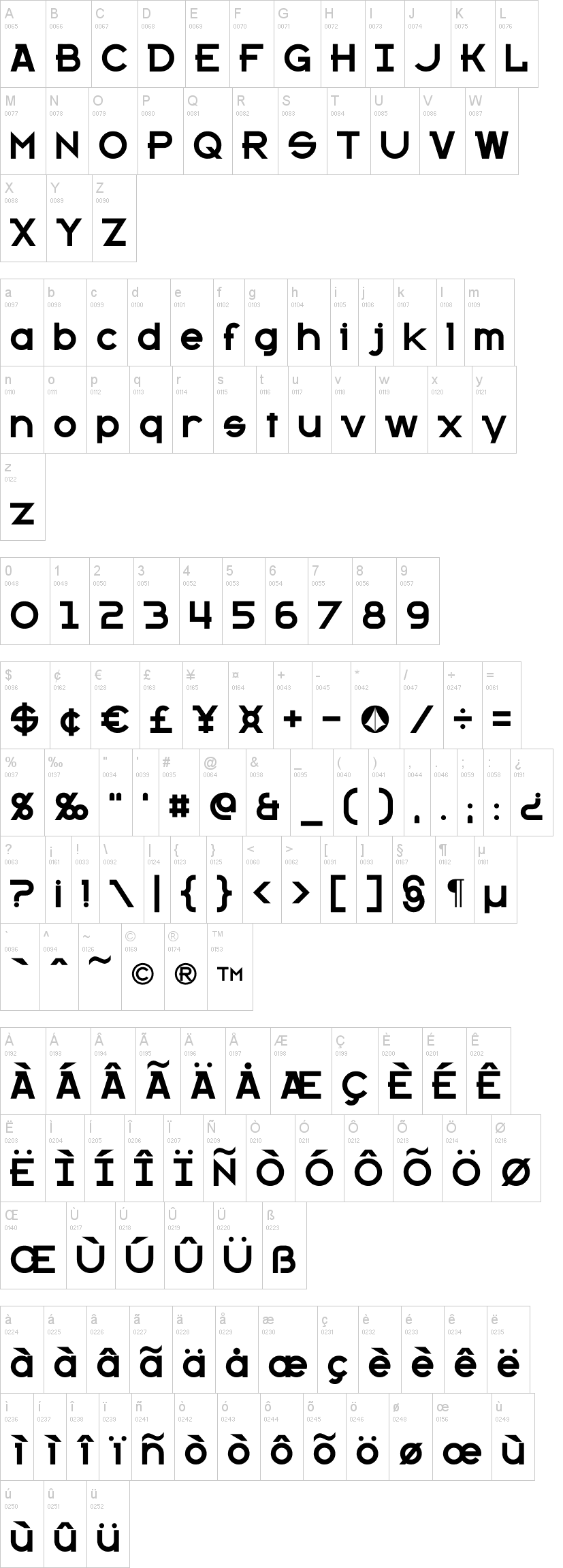
Kanno Italic.otfKanno Bold.otfKanno Bold Italic.otfNote of the authorKanno is based heavily upon the title logo for the Macross Plus OVA series and named after the lead vocalist and composer, Yoko Kanno, who made that series exceptional. Includes full alphabet, extended punctuation, euro. Includes regular, bold, italic, and bold-italic versions.
- Added OE and Per-Thousand glyphs
- Spacing cleanup